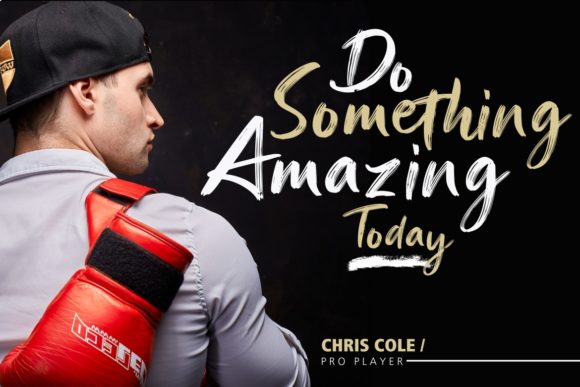
Ganttlets Font: Elevate Your Design Projects with a Unique Script
In the world of design, fonts play a crucial role in making a project stand out. A unique font can elevate your design, convey your message more effectively, and leave a lasting impression on your audience. This is where Ganttlets Font comes in – a one-of-a-kind script that can transform any design project into a masterpiece. In this article, we’ll explore the features, benefits, and uses of Ganttlets Font, and why it’s a must-have for designers and creatives.
What is Ganttlets Font?
Ganttlets Font is a distinctive script font designed to add a touch of elegance and sophistication to your design projects. Its unique style and characteristics make it an excellent choice for a wide range of applications, from branding and advertising to packaging and digital media. Ganttlets Font is not just a font; it’s a design statement that can help you differentiate your project from the crowd.
Key Features of Ganttlets Font
- Unique and Exclusive: Ganttlets Font is a one-of-a-kind script that will make your design project stand out from the rest.
- High-Quality Design: The font is designed with precision and attention to detail, ensuring a high level of readability and aesthetic appeal.
- Versatile: Ganttlets Font can be used in various design projects, including logos, branding, advertising, packaging, and digital media.
- Easily Customizable: The font can be easily customized to fit your project’s specific needs, allowing you to experiment with different styles and effects.
Benefits of Using Ganttlets Font
Using Ganttlets Font in your design projects offers several benefits, including:
- Instant Recognition: The unique style of Ganttlets Font can help your project gain instant recognition and grab the attention of your audience.
- Emotional Connection: The font’s elegant and sophisticated design can create an emotional connection with your audience, making your message more relatable and memorable.
- Competitive Edge: By using a one-of-a-kind font like Ganttlets, you can differentiate your project from competitors and establish a strong brand identity.
- Time-Saving: With Ganttlets Font, you can save time and effort in searching for the perfect font, as it’s a ready-to-use solution that can elevate your design instantly.
How to Use Ganttlets Font
Using Ganttlets Font is easy and straightforward. Here are some tips to get you started:
- Pair it with Other Fonts: Experiment with pairing Ganttlets Font with other fonts to create a unique and harmonious design.
- Adjust Font Size and Style: Adjust the font size and style to fit your project’s specific needs and achieve the desired effect.
- Use it in Branding and Advertising: Use Ganttlets Font in branding and advertising materials, such as logos, billboards, and magazine ads, to create a lasting impression.
- Experiment with Digital Media: Use Ganttlets Font in digital media, such as social media graphics, website headers, and email newsletters, to add a touch of elegance and sophistication.
Tips and Tricks for Working with Ganttlets Font
Here are some additional tips and tricks to help you get the most out of Ganttlets Font:
- Pay Attention to Kerning: Pay attention to kerning and letter spacing to ensure that the font looks balanced and visually appealing.
- Use it in Combination with Images: Use Ganttlets Font in combination with images to create a visually appealing and engaging design.
- Experiment with Colors: Experiment with different colors and textures to add depth and interest to your design.
- Keep it Simple: Keep your design simple and focused, and let Ganttlets Font take center stage.
Ganttlets Font is a one-of-a-kind script that can elevate any design project into a masterpiece. Its unique style, high-quality design, and versatility make it an excellent choice for designers and creatives. By using Ganttlets Font, you can create a lasting impression, establish a strong brand identity, and differentiate your project from the crowd. So why settle for ordinary fonts when you can have an extraordinary one? Try Ganttlets Font today and take your design projects to the next level!